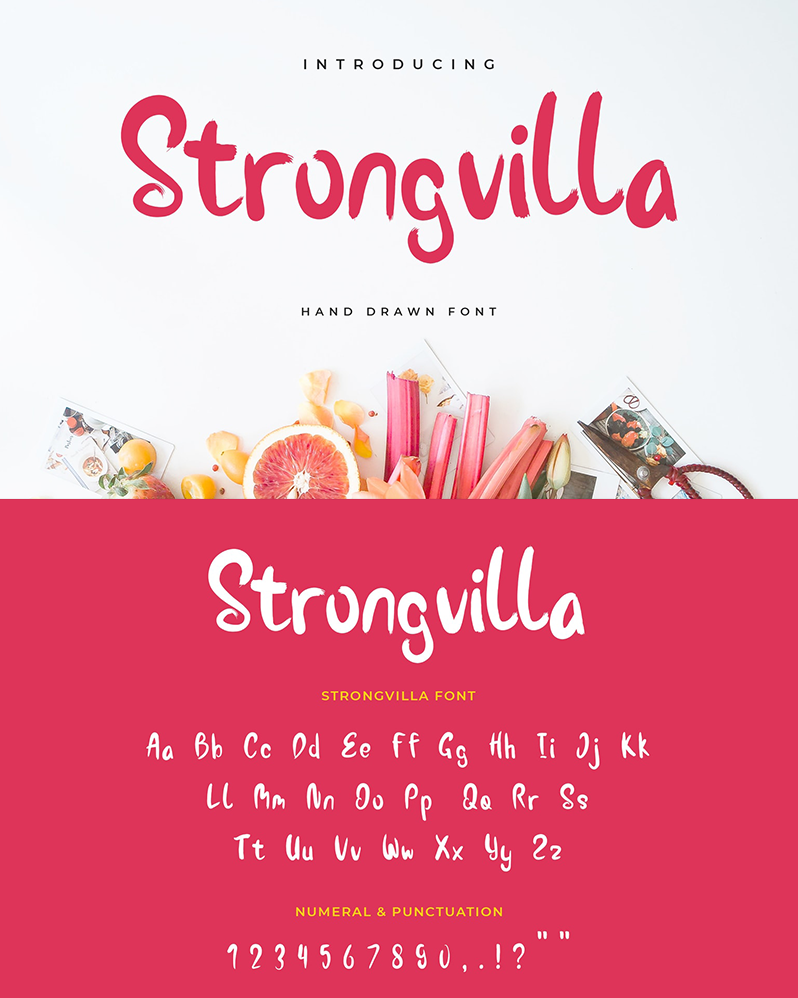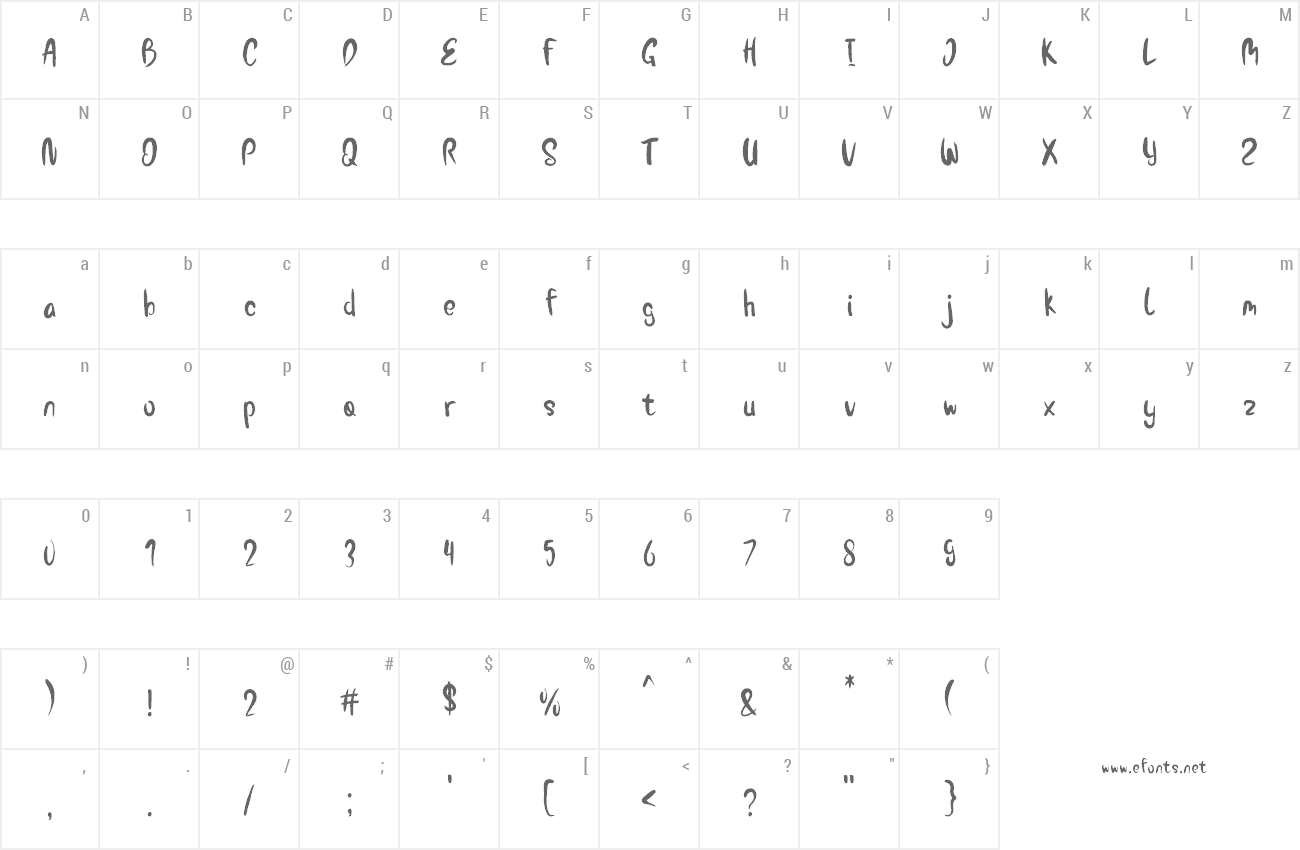
Preview and download Strongvilla Font. Created by UI Creative in Script Brush styles with Free for personal use license.
Strongvilla Handrawn Typeface is a handmade font. Give your design a touch of font like handwriting that looks more natural and elegant. With a glyph style, the tip is made like a brushstroke making this font look like it was painted. Suitable for text on brands, logos, posters, clothing, snack packaging, handicraft products, and more. It�s also good for plain and semi-formal texts. You can buy full license from our store for more our fonts:https://uicreative.net/products/fonts-strongvilla-handrawn-typeface |